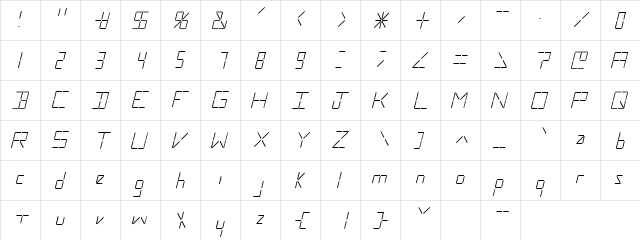
Liquid Crystal Oblique
Design Context for Liquid Crystal Typeface
Liquid Crystal takes a measured approach to typography — its balanced proportions and neutral character make it a reliable workhorse for both digital and print work. Its italic angle brings a sense of urgency and motion to the letterforms.
Pro Tip: Use Liquid Crystal for emphasis, pull quotes, and subheadings where its slanted energy can add rhythm to the layout.